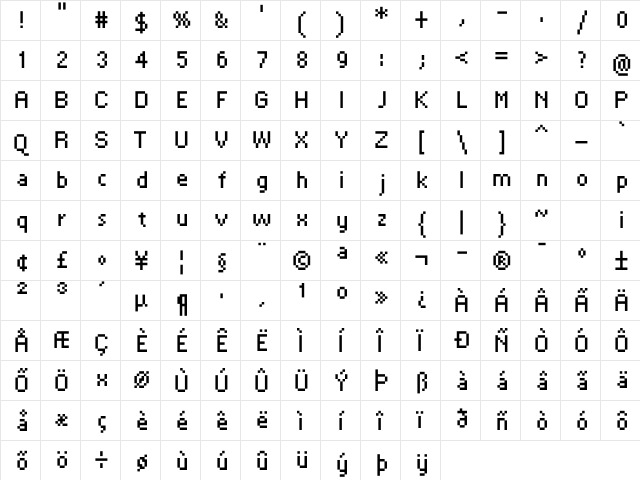
Tenacity Condensed Regular
Design Context for Tenacity Condensed Typeface
Tenacity Condensed offers clean, dependable letterforms without strong stylistic allegiance, making it a practical choice for designers who need flexibility. Its narrow stance lets it pack a punch even in space-constrained designs.
Pro Tip: Use Tenacity Condensed in both headline and body roles to test its range before committing to a single application.